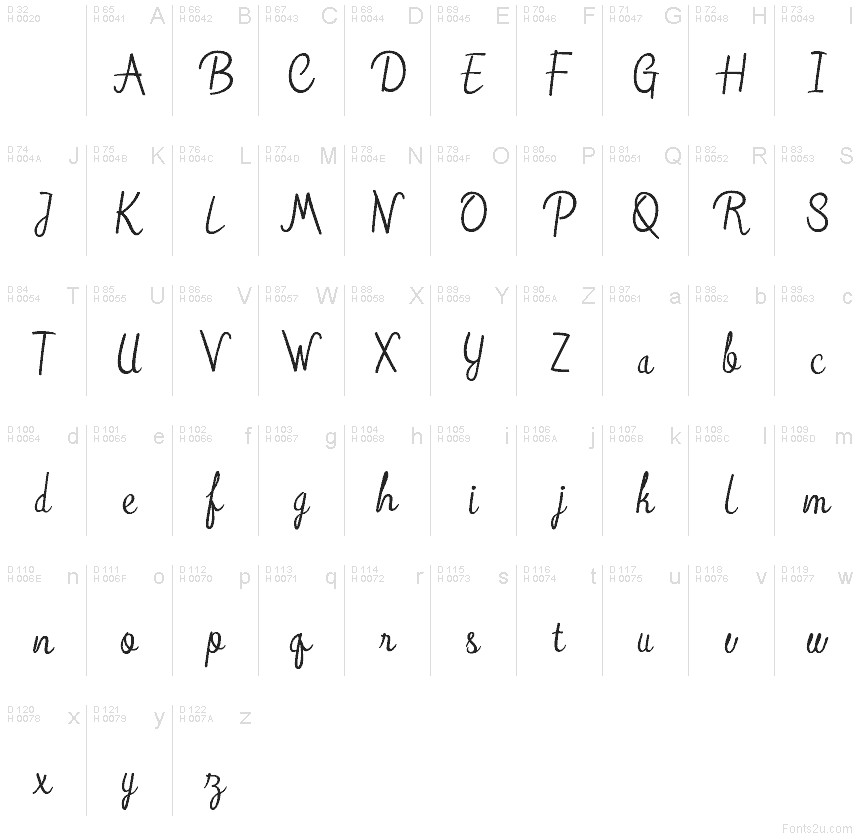
CS Blushing Regular Demo
CS Blushing font is a romantic handwritten font by Craft Supply Co. This modern script displays elegant flowing characters outlined with unique stroke thickness variations and delicate detailing. Light and feminine, it visualizes beauty through gentle curved letters that combine delicacy and strength.
The free handwritten font will add a magical touch to wedding invitations, greeting cards, fashion branding, stationery designs, social media posts, jewelry ads, product packaging designs…